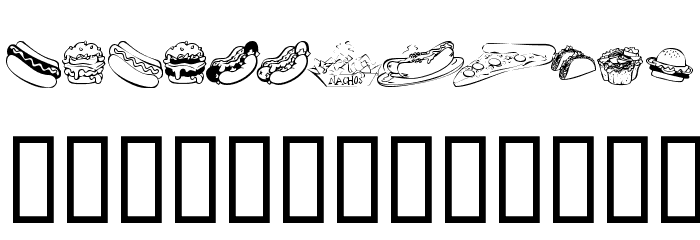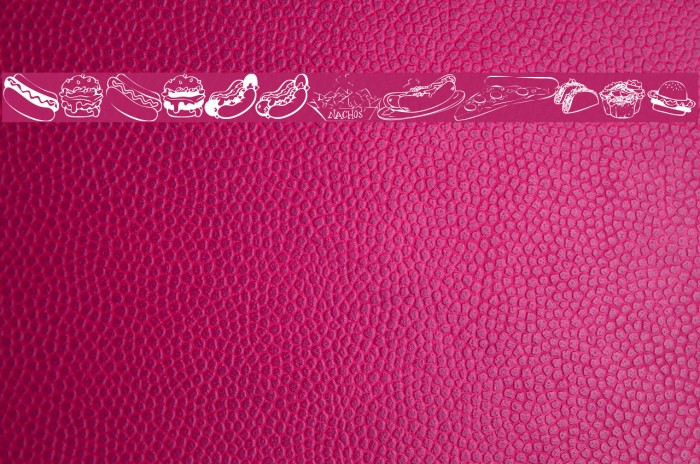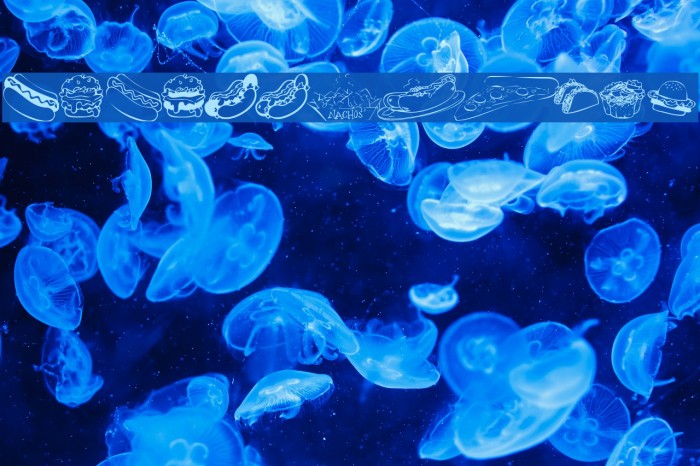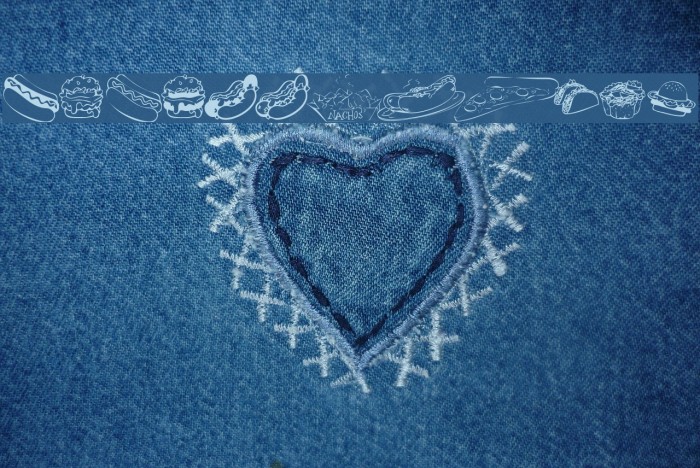
KR Fast Food Font
This is a decorative font that features a playful and whimsical design with fast food illustrations. Each character is represented by a different food item, such as hot dogs, burgers, and pizza, creating a fun and engaging visual experience. The font is ideal for projects that require a lighthearted and informal touch, making it perfect for food-related themes or children's materials. The illustrations are detailed and capture the essence of each food item, adding a unique and creative flair to any design.
A playful decorative font featuring fast food illustrations for each character.
- Proposed Projects: Ideal for food-themed posters, children's books, restaurant menus, and playful branding projects.
- Overall Style: Playful and whimsical
- Use Case: Logos, Posters, Branding, Children's materials